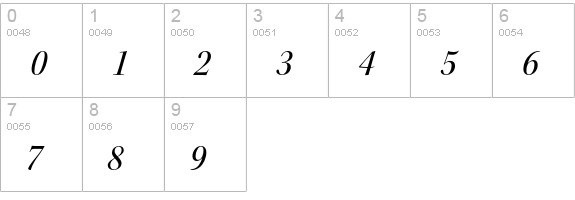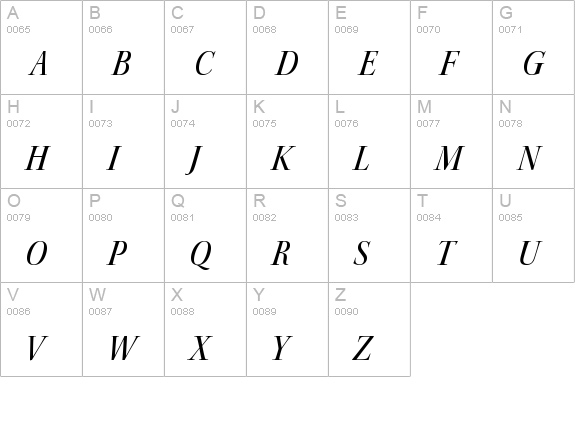
Kepler Std Medium Semicondensed Italic Display Font Details
Kepler Std Medium Semicondensed Italic Display is a balanced, medium-weight, italic variant in the Kepler typeface family \xE2\x80\x94 well suited to sub-headlines, navigation, and balanced editorial work.
Introducing Kepler Std Medium Semicondensed Italic Display font, a captivating and versatile typeface that effortlessly balances elegance and modernity. This font exudes a sense of sophistication with its refined curves and slender letterforms, making it perfect for a wide range of design projects. Designed with meticulous attention to detail, Kepler Std Medium Semicondensed Italic Display font showcases a harmonious blend of sharp angles and gentle slopes, creating a unique visual rhythm. Its italicized style adds a touch of dynamism and flair, making it an ideal choice for conveying a sense of movement and energy. With its medium weight, this font strikes the perfect balance between legibility and impact, making it suitable for both headlines and body text. Its semicondensed proportions allow for efficient use of space, making it an excellent choice for projects that require compact yet readable typography. What sets Kepler Std Medium Semicondensed Italic Display font apart is not only its impeccable design, but also its accessibility. This font is freely available to download at FontsMarket.com, giving designers and enthusiasts alike the opportunity to incorporate this stunning typeface into their projects without any limitations. Whether you're designing a sleek magazine layout, creating eye-catching packaging, or crafting a visually stunning website, Kepler Std Medium Semicondensed Italic Display font is the perfect companion to elevate your designs. Its versatility, elegance, and free availability make it a valuable asset for any design arsenal.